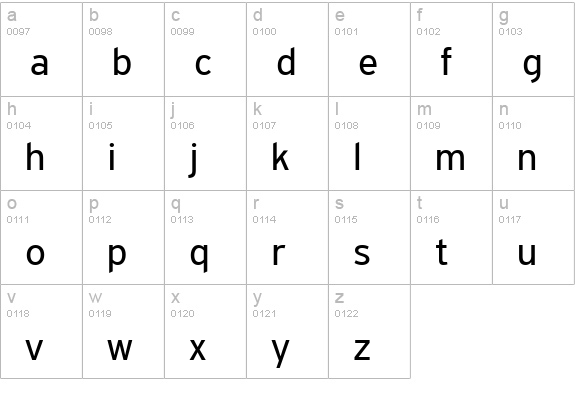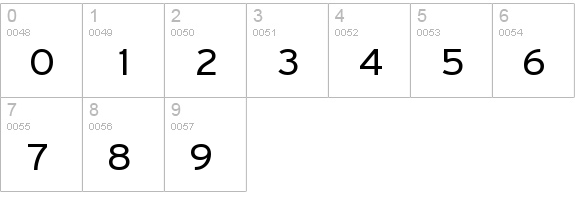
PFHighwaySansPro-Regular is the standard, neutral variant in the PFHighwaySansPro typeface family \xE2\x80\x94 well suited to general body text, paragraphs, and standard typographic work.
PFHighwaySansPro-Regular is a modern and versatile font that exudes a sleek and professional aesthetic. With its clean lines and balanced proportions, this typeface is perfect for a wide range of design projects, from branding to editorial layouts. The clarity of its letterforms ensures excellent readability across different mediums and sizes. What's even better is that PFHighwaySansPro-Regular is available for free download at FontsMarket.com. Whether you're a designer looking to expand your font library or a business owner seeking a polished look for your marketing materials, this font is a valuable addition to your toolkit. Don't miss out on the opportunity to enhance your designs with this high-quality typeface that is both stylish and accessible. Download PFHighwaySansPro-Regular today and elevate your creative projects to new heights.